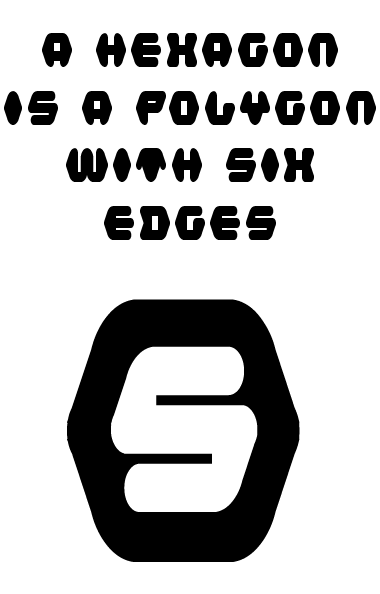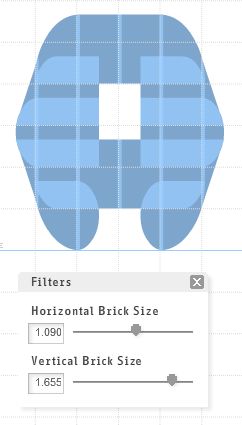
Clever use of filters and stacking. Nice job.
Very pretty hexagonal shapes. I often admired those who have mastered the use of filters to achieve graceful curves. Thank you for sharing your trade secrets and providing an X-ray image. 10/10
One more thing: I would reduce the spacing between the letters a bit.